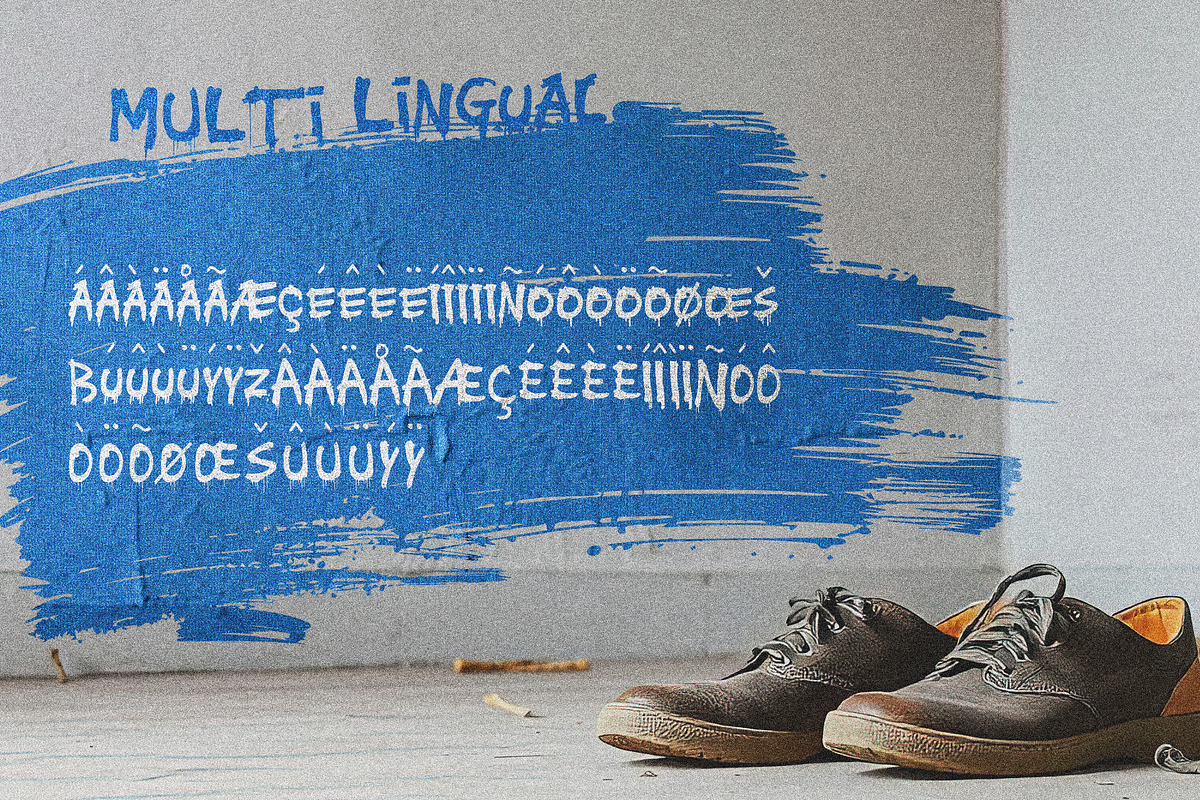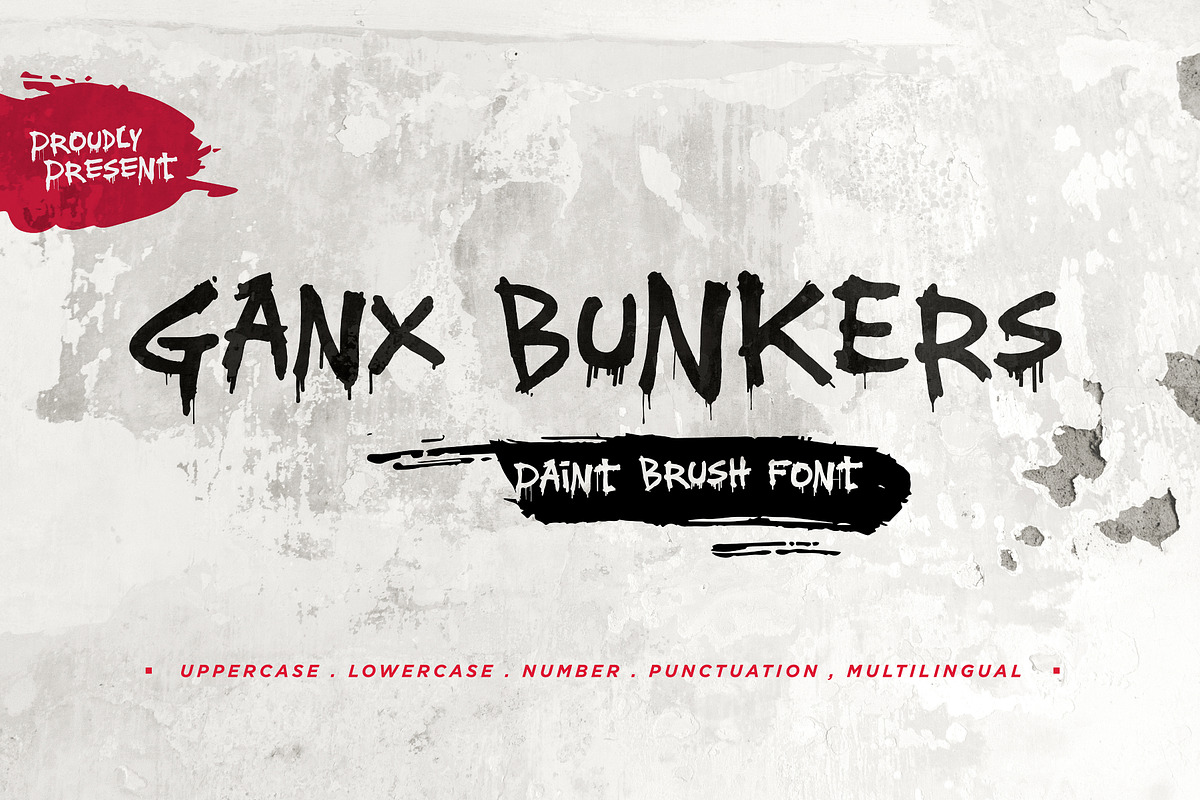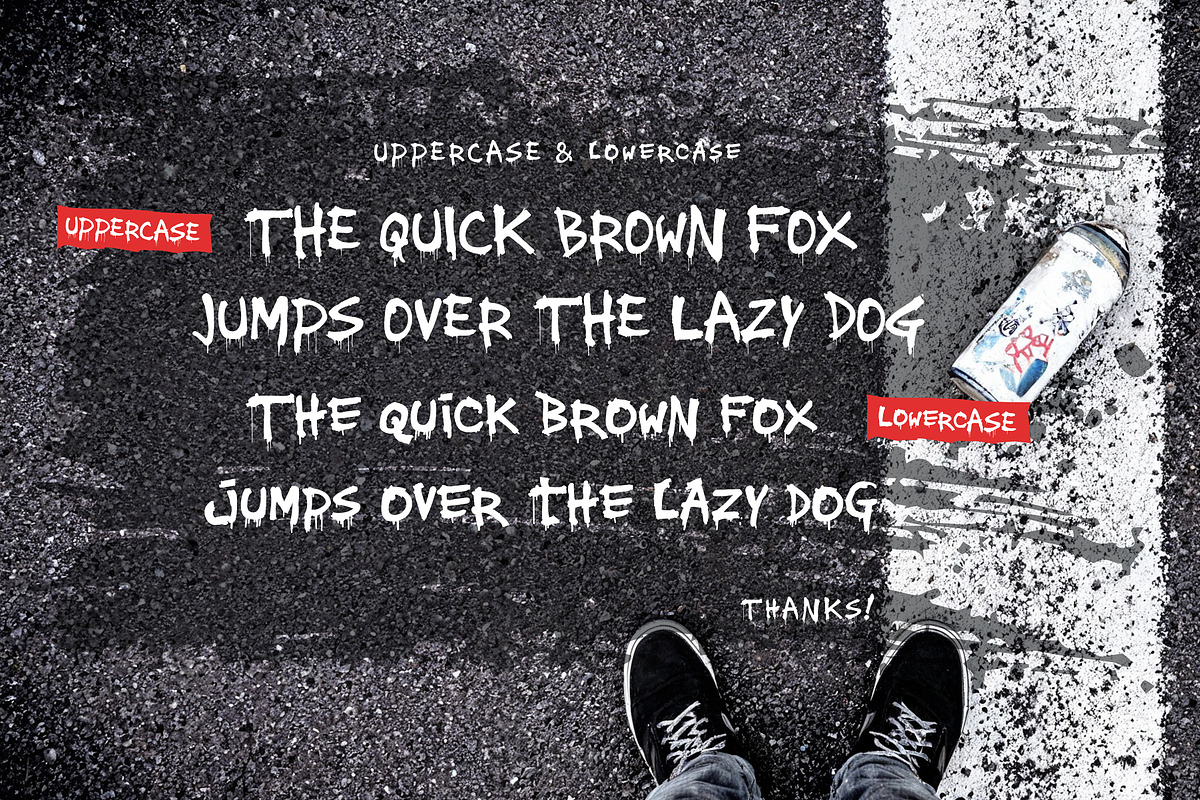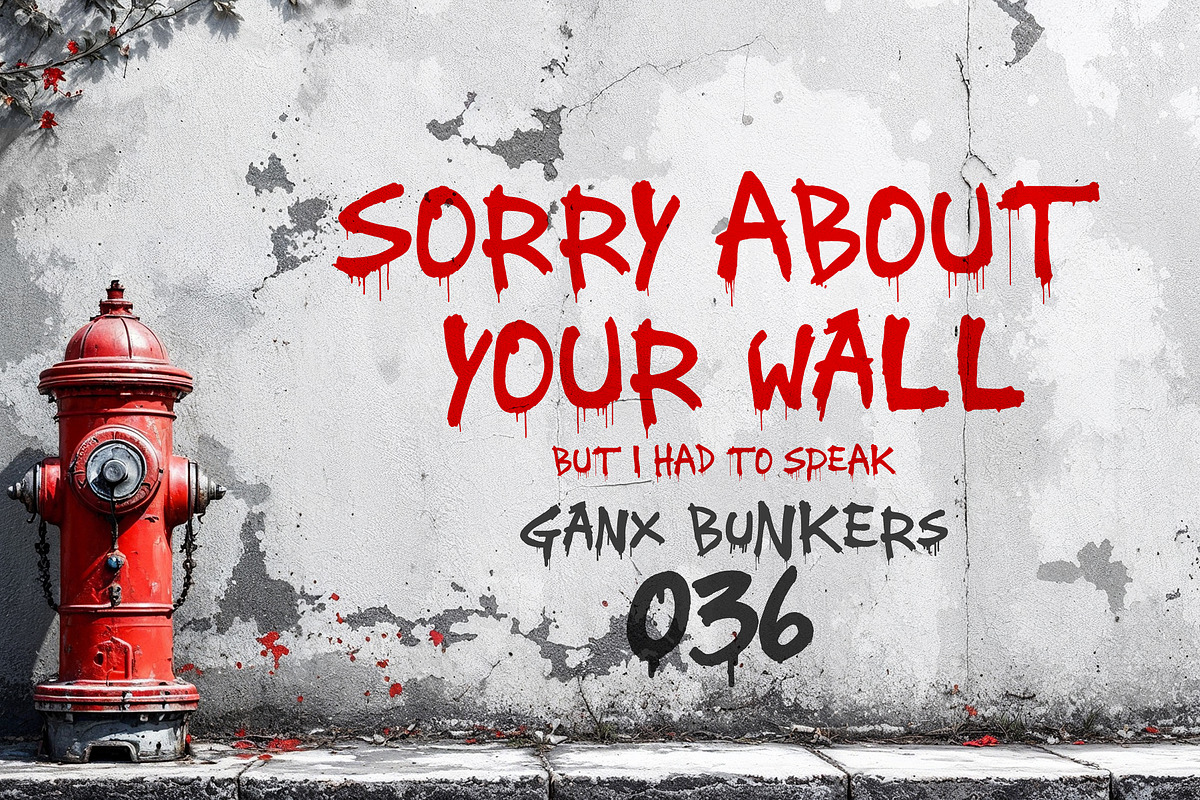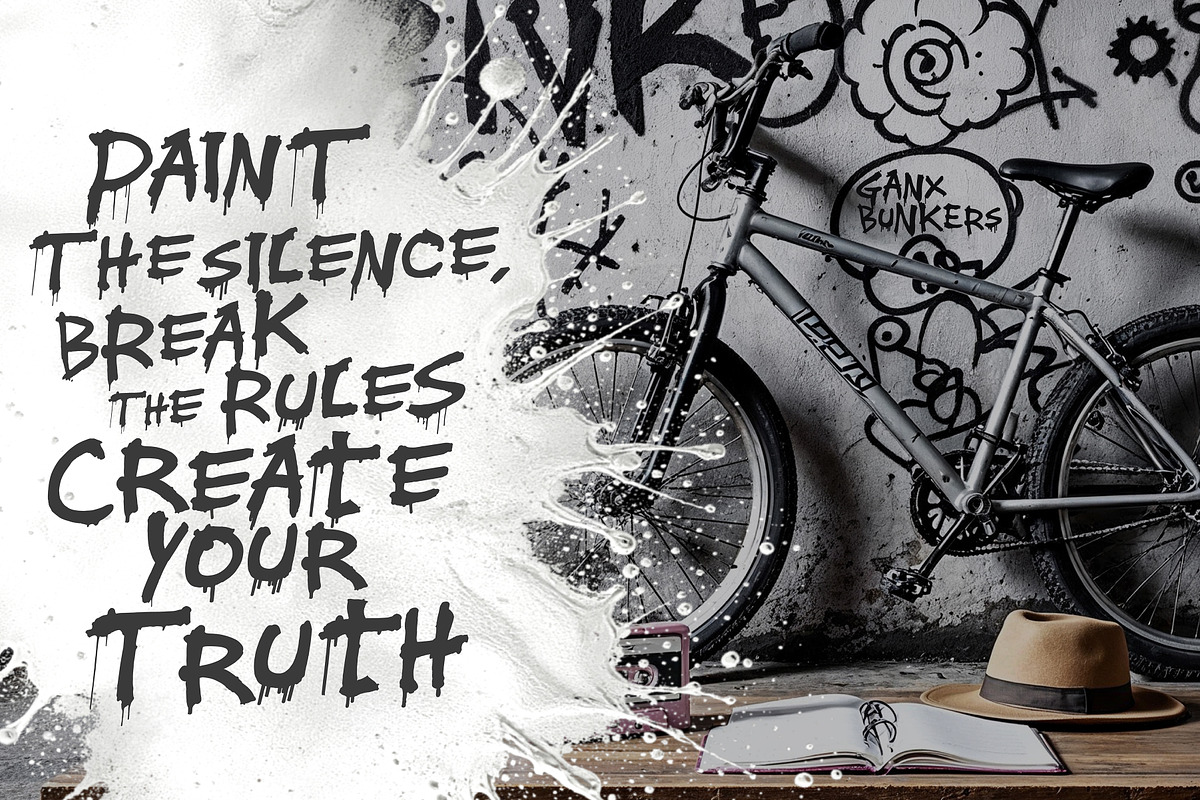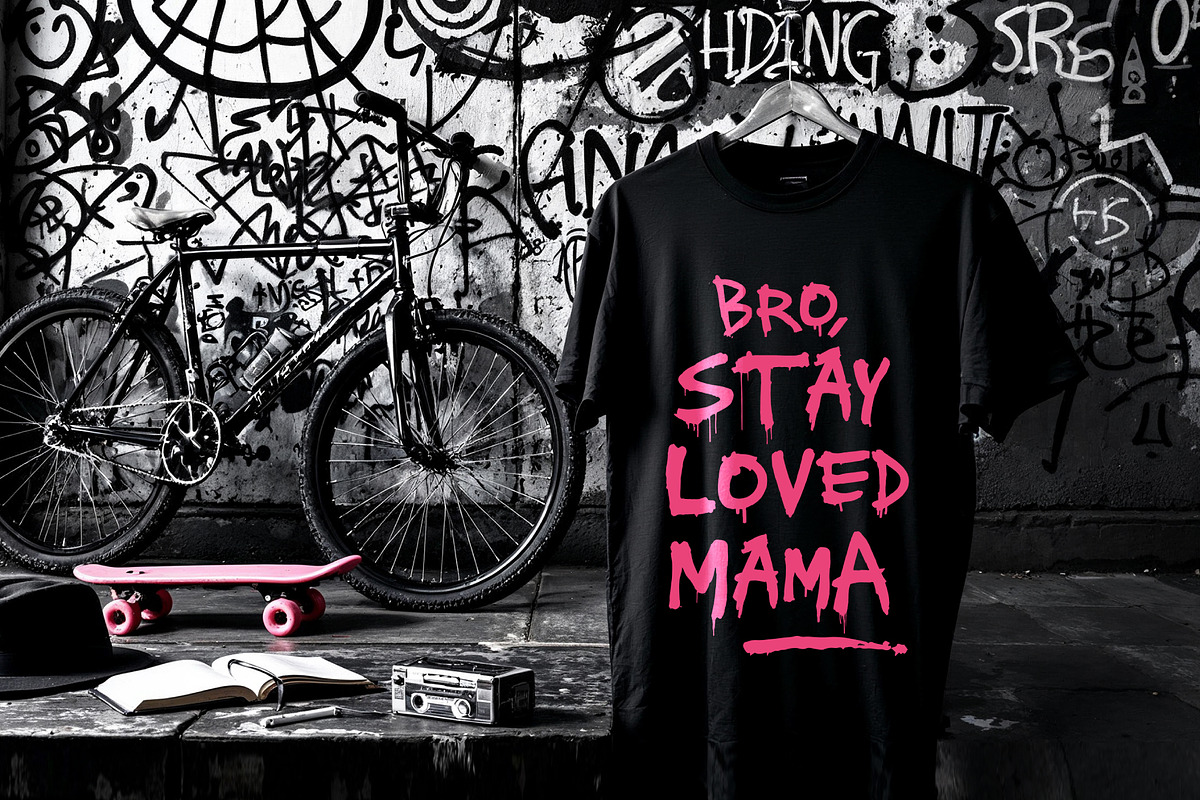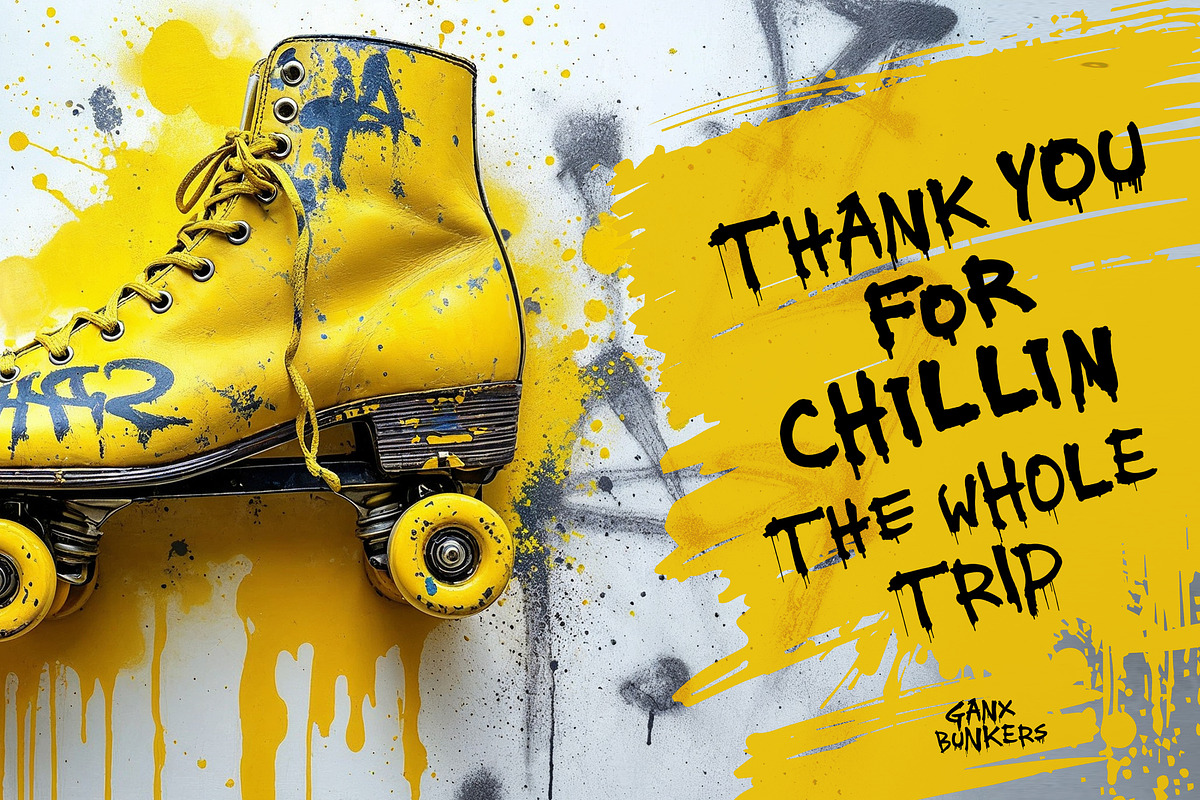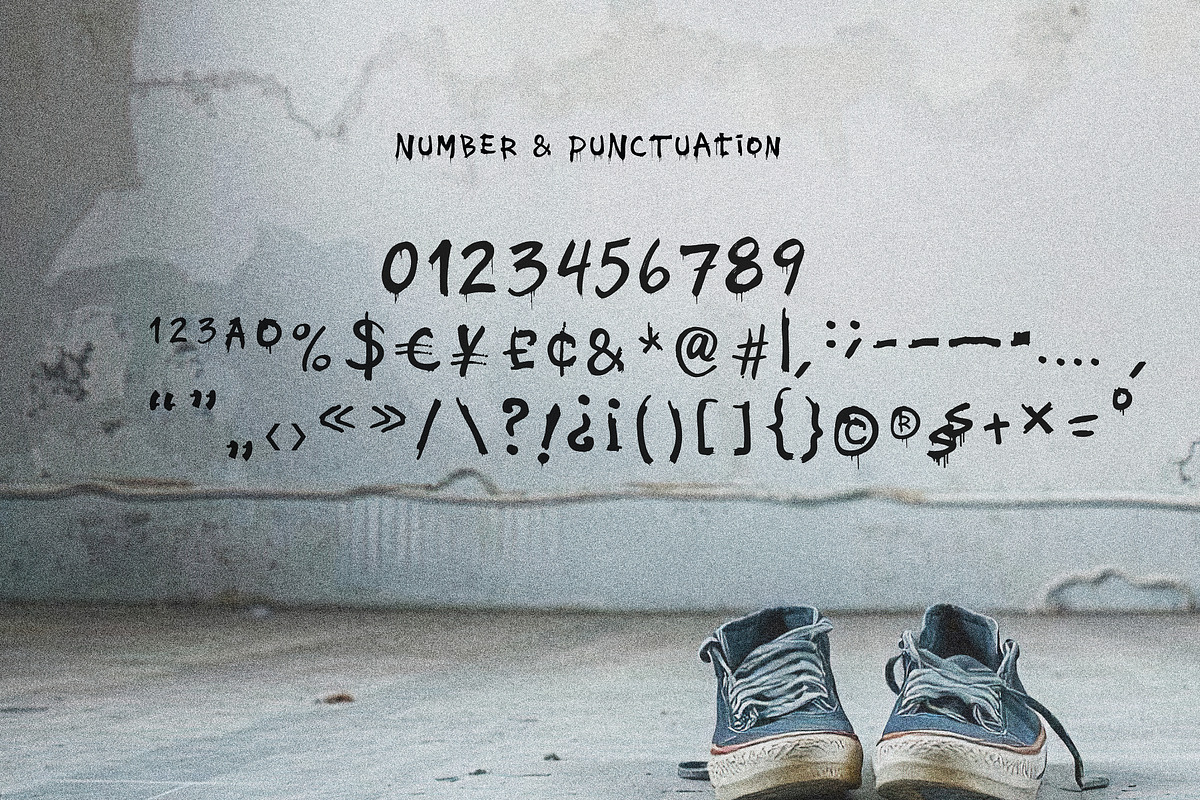
GanxBungkers - Paint Brush Font
Ganx Bungkers is a display font bursting with youthful energy, perfect for capturing attention with its trendy, graffiti-inspired style. Bold, expressive, and full of character, this font brings an urban edge to any design, making it ideal for posters, brochures, social media graphics, and more.
Designed for creatives who want to make a statement, Ganx Bungkers blends a raw street-style aesthetic with modern design trends. It’s the perfect fit for brands, music events, skate culture, fashion campaigns, and any project that celebrates freedom, individuality, and youthful expression.
Unleash your creativity with Ganx Bungkers—where urban vibes meet fearless design.